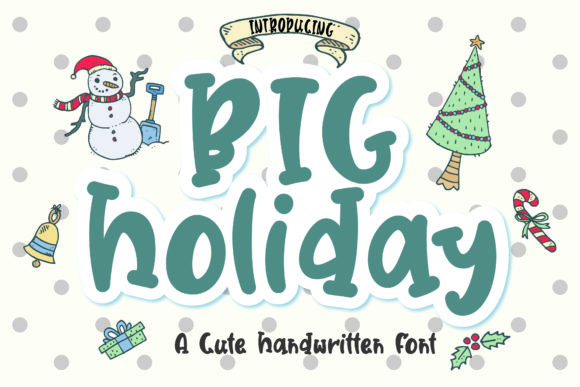
Introducing Big Holiday Font: The Perfect Choice for Festive and Fun Designs
Are you looking for a font that embodies playfulness and authenticity for your next children’s activity or school project? Look no further than Big Holiday Font! This round lettered and chic handwritten font is the perfect choice for designers and crafters who want to add a touch of fun and festivity to their work.
What is Big Holiday Font?
Big Holiday Font is a unique and stylish font that is perfect for holiday-themed designs, children’s activities, and school projects. Its round lettered and chic handwritten style gives it a playful and authentic feel that is sure to capture the attention of your audience. Whether you’re creating a festive Christmas card, a fun Easter egg hunt flyer, or a colorful Halloween party invitation, Big Holiday Font is the perfect choice.
Key Features of Big Holiday Font
- Round Lettered and Chic Handwritten Style: Big Holiday Font features a unique and stylish round lettered and chic handwritten style that gives it a playful and authentic feel.
- Playful and Authentic: This font embodies playfulness and authenticity, making it perfect for children’s activities and school projects.
- Festive and Fun: Big Holiday Font is perfect for holiday-themed designs and adds a touch of fun and festivity to any project.
- Easy to Read: The font is clear and easy to read, making it perfect for designs that require a lot of text.
Uses for Big Holiday Font
Big Holiday Font is a versatile font that can be used for a variety of projects, including:
- Children’s Activities: Big Holiday Font is perfect for creating fun and engaging children’s activities, such as coloring pages, word searches, and crossword puzzles.
- School Projects: This font is great for school projects, such as posters, presentations, and reports.
- Holiday-Themed Designs: Big Holiday Font is perfect for creating festive holiday-themed designs, such as Christmas cards, Easter egg hunt flyers, and Halloween party invitations.
- Crafting and Scrapbooking: This font is great for crafters and scrapbookers who want to add a touch of fun and festivity to their projects.
Tips for Using Big Holiday Font
Here are some tips for using Big Holiday Font:
- Use it with Bright and Bold Colors: Big Holiday Font looks great with bright and bold colors, so don’t be afraid to get creative with your color palette.
- Mix and Match with Other Fonts: This font pairs well with other fonts, so feel free to mix and match it with other fonts to create a unique look.
- Use it for Headings and Titles: Big Holiday Font is perfect for headings and titles, so use it to add a touch of fun and festivity to your designs.
Big Holiday Font is a unique and stylish font that is perfect for designers and crafters who want to add a touch of fun and festivity to their work. Its round lettered and chic handwritten style gives it a playful and authentic feel that is sure to capture the attention of your audience. Whether you’re creating a festive holiday-themed design, a children’s activity, or a school project, Big Holiday Font is the perfect choice.